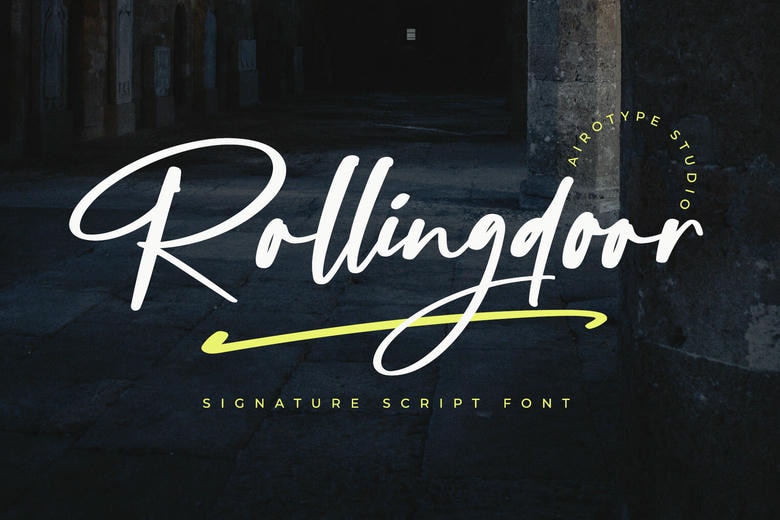
Rollingdoor Font
Rollingdoor is a playful handwritten signature font that blends simplicity, elegance, and a bit of flair. It works well for projects like wedding invitations, stickers, sublimation designs, cards, t-shirts, farmhouse decor, and more.
Rollingdoor Signature Script Font